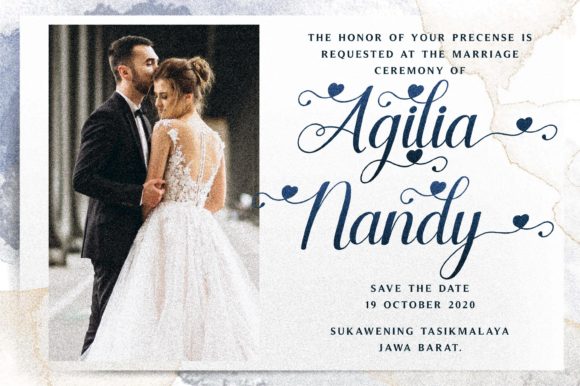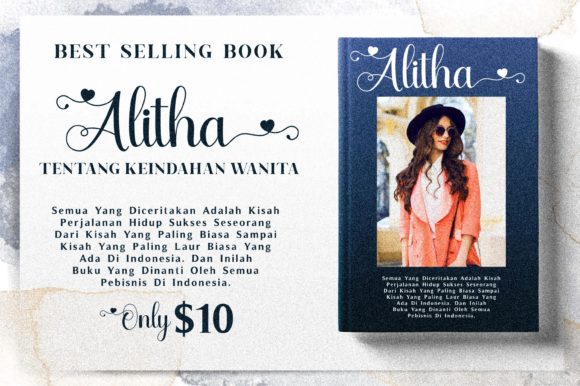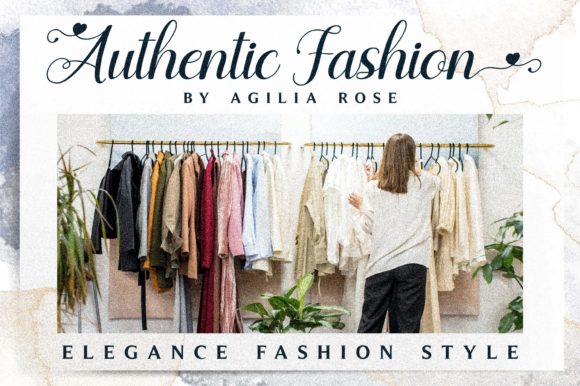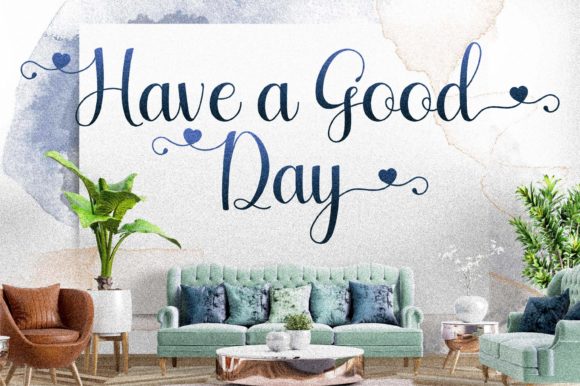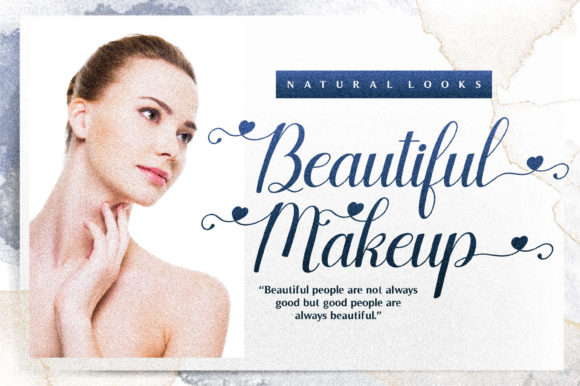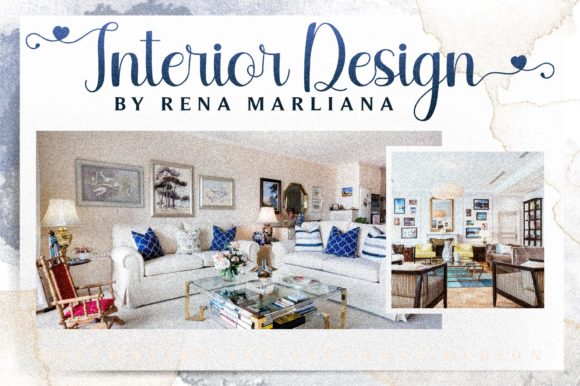
Introducing Agilia Font: Elevate Your Designs with Elegance
Are you on the hunt for a font that exudes style, delicacy, and sophistication? Look no further than Agilia Font, a stunning handwritten font that’s sure to take your designs to the next level. With its clean, thin, and smooth vibe, Agilia is the perfect addition to any project that requires a touch of elegance.
What Makes Agilia Font So Special?
Agilia Font is a beautifully crafted font that’s designed to add a touch of refinement to any design. Its delicate and stylish appearance makes it ideal for a wide range of projects, from wedding invitations and branding materials to packaging and digital media. The font’s clean and smooth lines ensure that it remains legible even at smaller sizes, making it a versatile choice for designers.
One of the standout features of Agilia Font is its PUA (Private Use Area) encoding. This means that you can access all of the font’s glyphs and swashes with ease, giving you greater creative control over your designs. With PUA encoding, you can effortlessly navigate the font’s extensive character set, including alternates, ligatures, and decorative swashes.
Agilia Font is a dream come true for designers and crafters who want to add a personal touch to their work. Whether you’re creating custom wedding invitations, designing branding materials for a client, or crafting unique digital content, Agilia Font provides the perfect combination of style and versatility. Its delicate appearance ensures that it won’t overpower your design, while its range of glyphs and swashes allows you to add creative flourishes.
Use Agilia Font in a Variety of Projects
The possibilities are endless when it comes to using Agilia Font. Here are just a few ideas to get you started:
- Packaging design, including product labels and packaging inserts
- Digital media, such as social media graphics and blog headers
Tips for Using Agilia Font
To get the most out of Agilia Font, here are a few tips to keep in mind:
- Pair Agilia Font with a bold font for a striking contrast
- Experiment with different glyphs and swashes to add visual interest
- Use Agilia Font in combination with images or illustrations for a unique look
- Don’t be afraid to get creative and try out new and innovative uses for the font
In conclusion, Agilia Font is a stylish and delicate handwritten font that’s sure to become a favorite among designers and crafters. Its clean, thin, and smooth vibe makes it perfect for a wide range of projects, while its PUA encoding provides easy access to a wealth of glyphs and swashes. Whether you’re looking to add a touch of elegance to your designs or simply want to try out a new and exciting font, Agilia Font is an excellent choice.